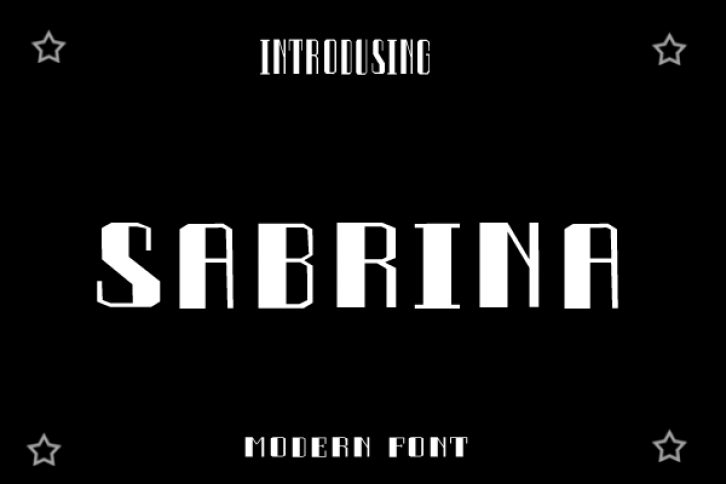
Sabrina is a cool, bold and thick lettered display font. This font is ideal for writing web designs, business cards, or pretty much anything else that requires a techno, modern touch.